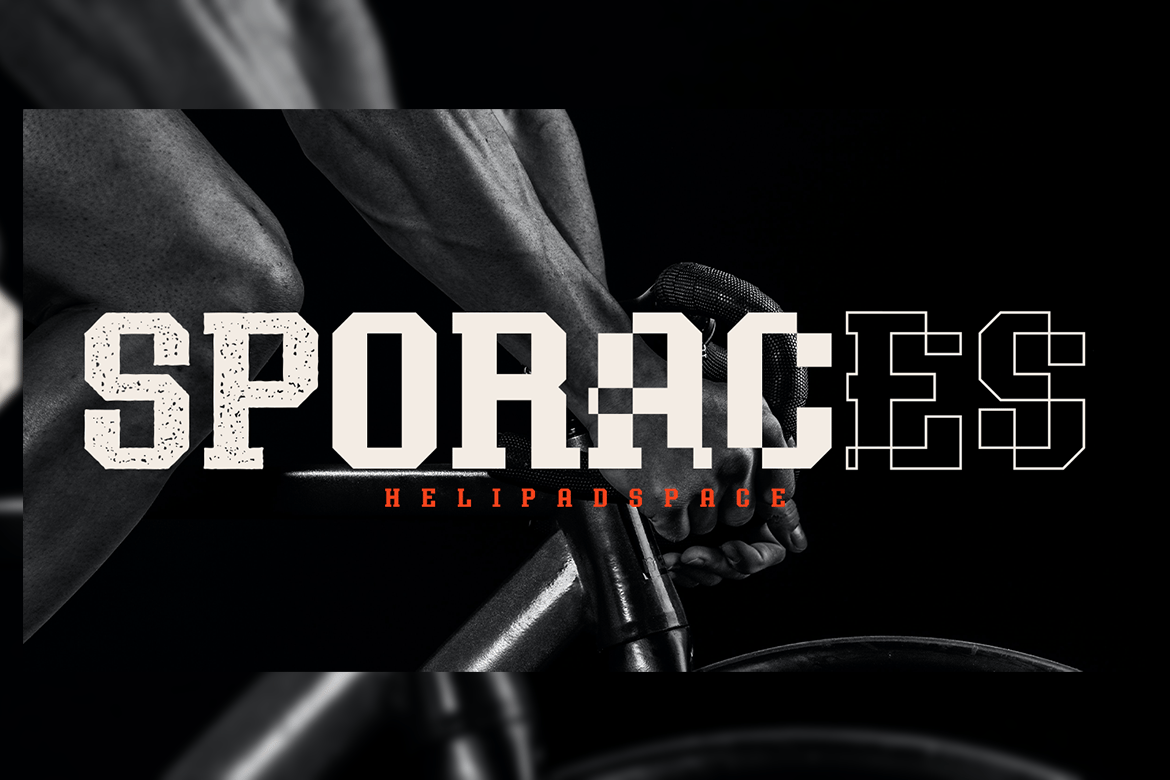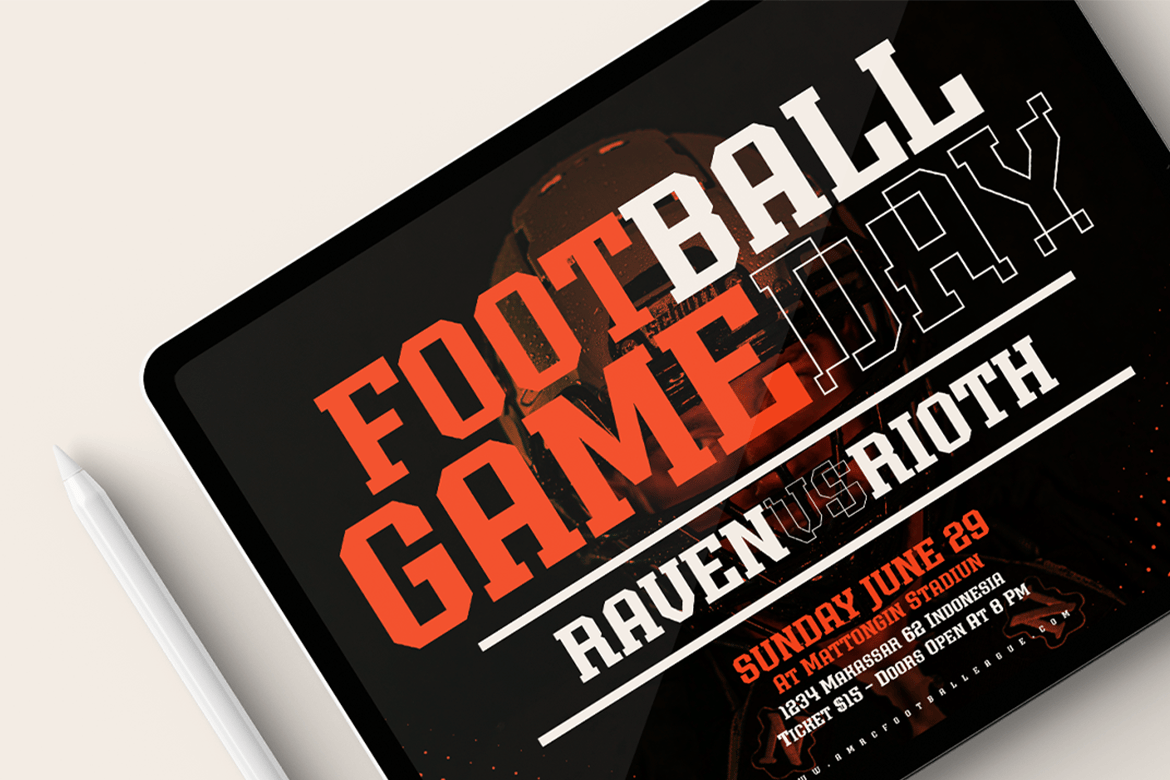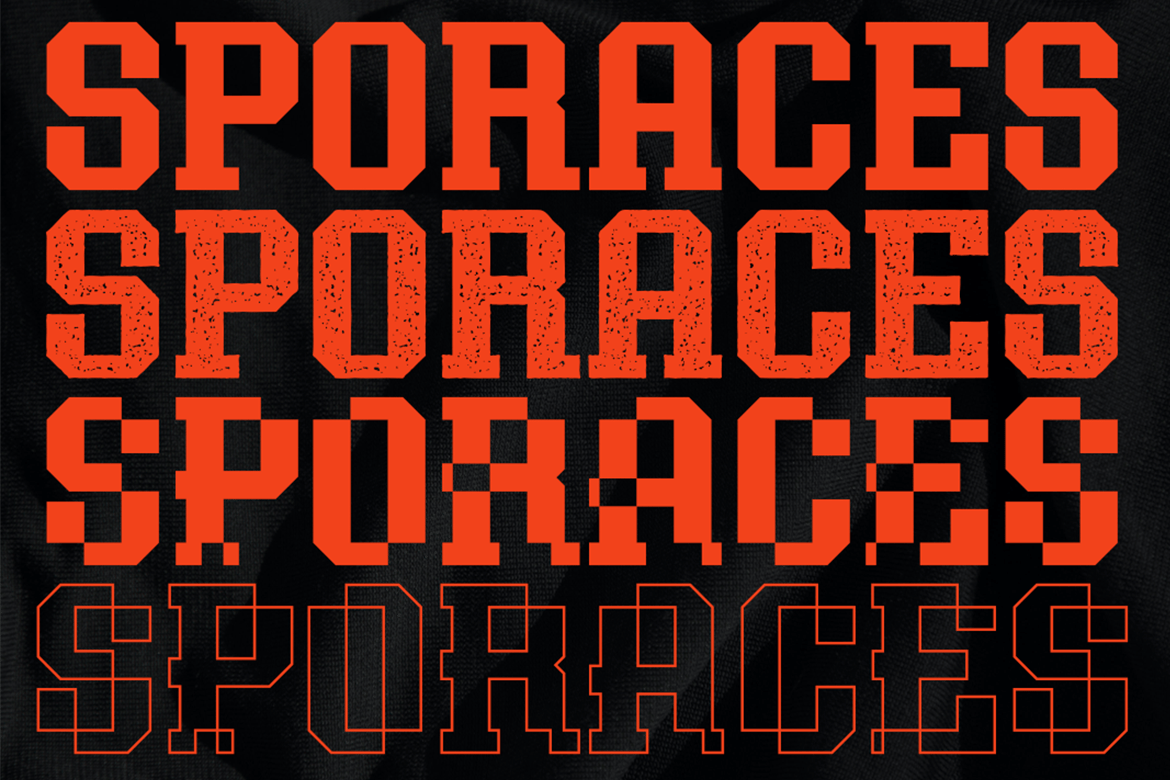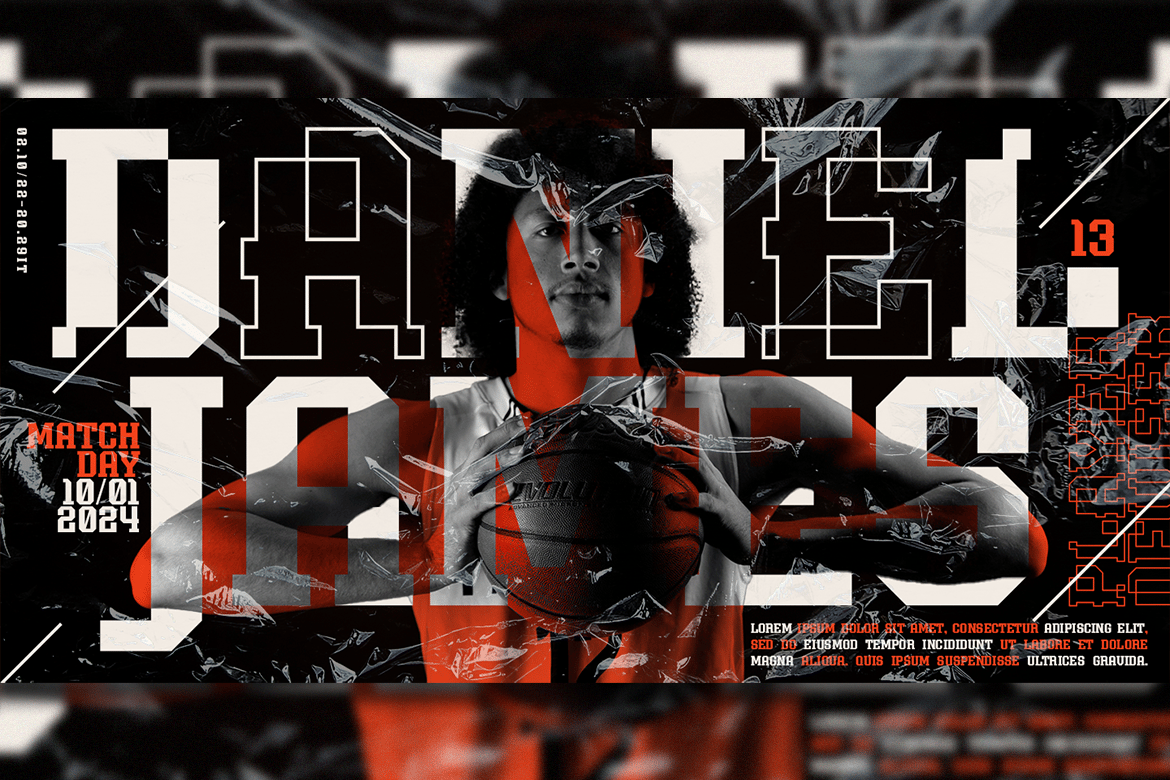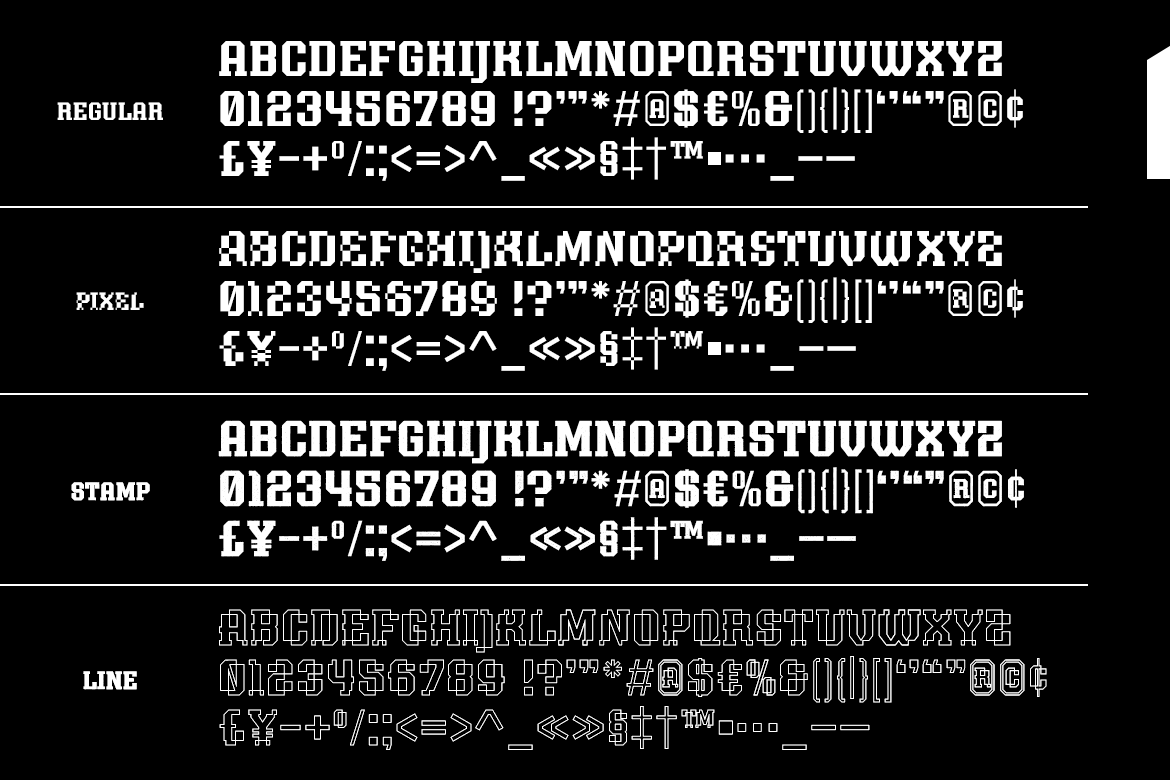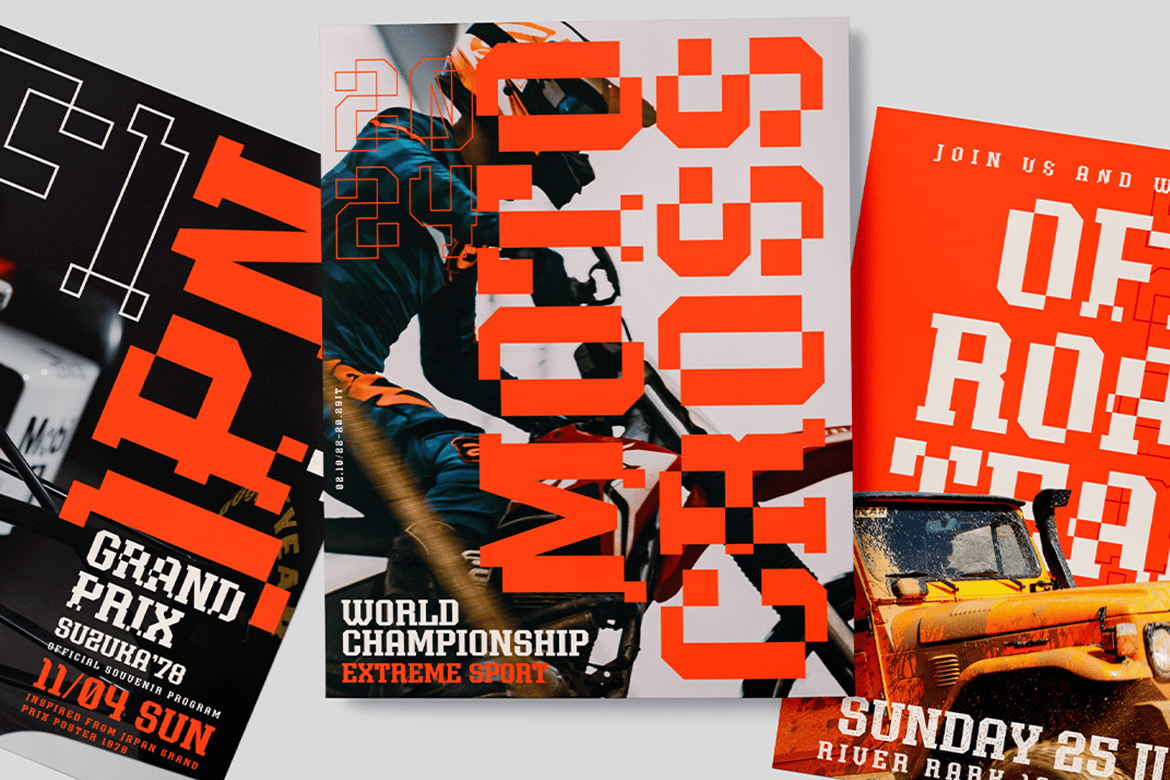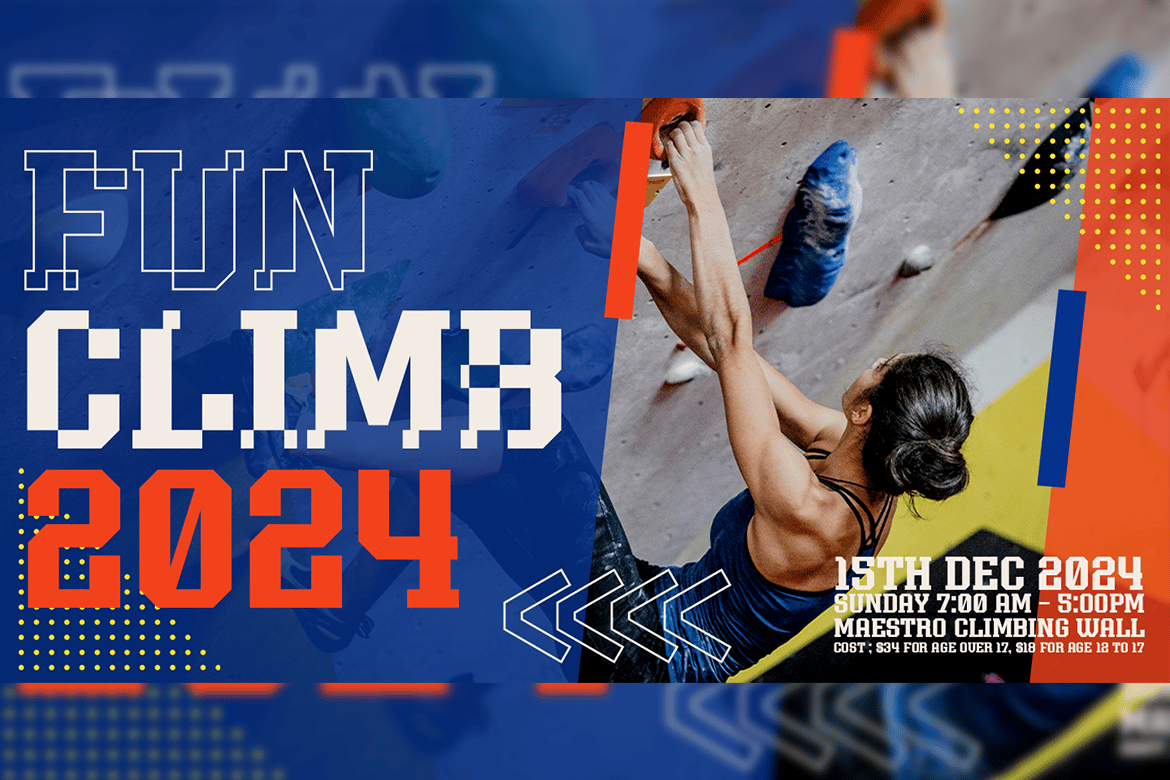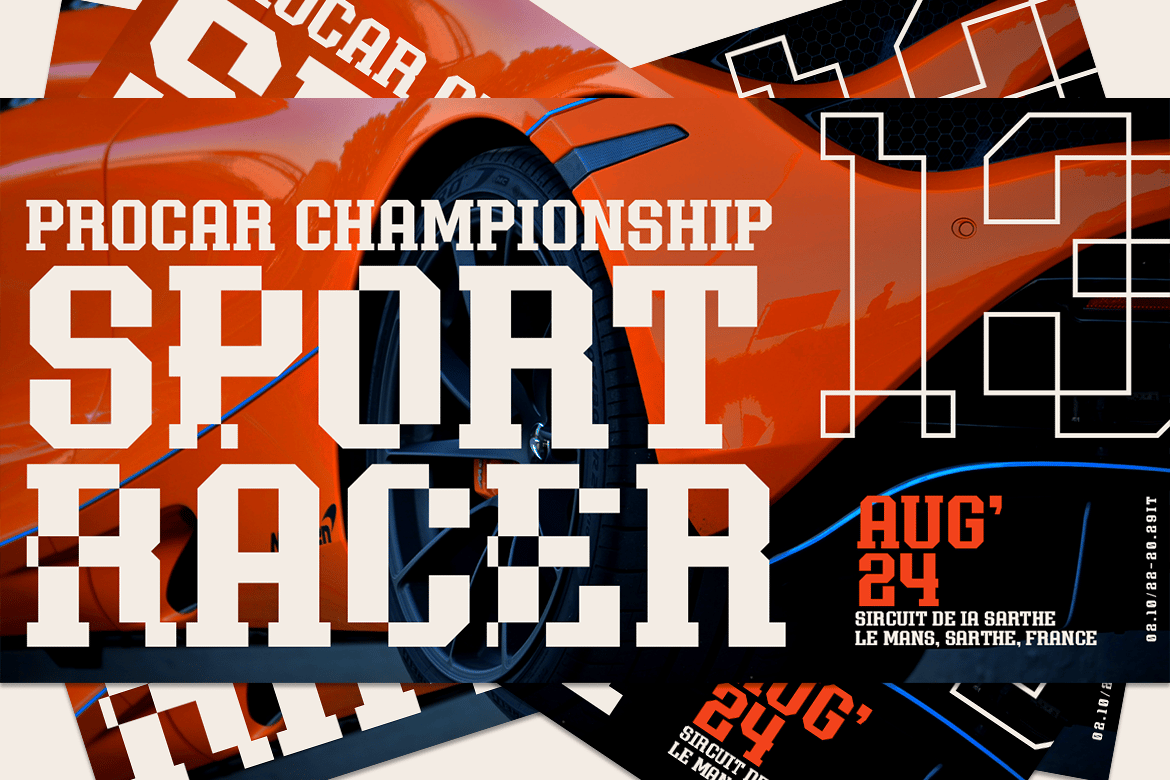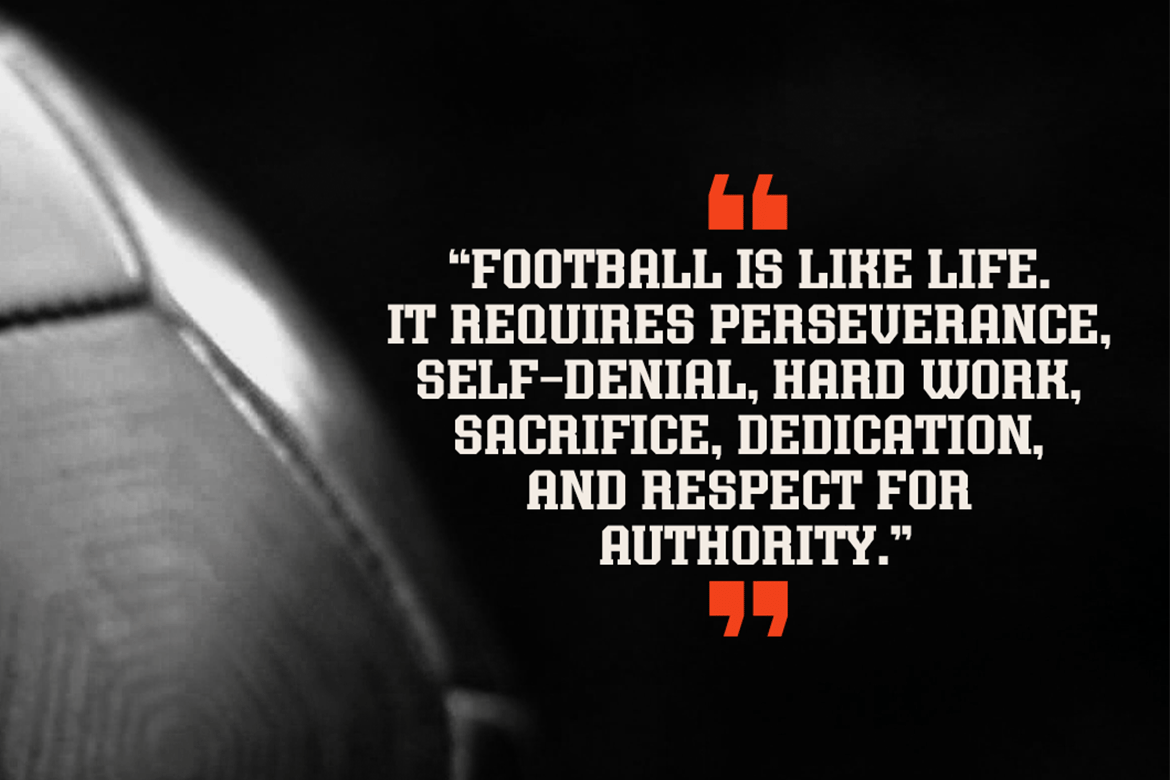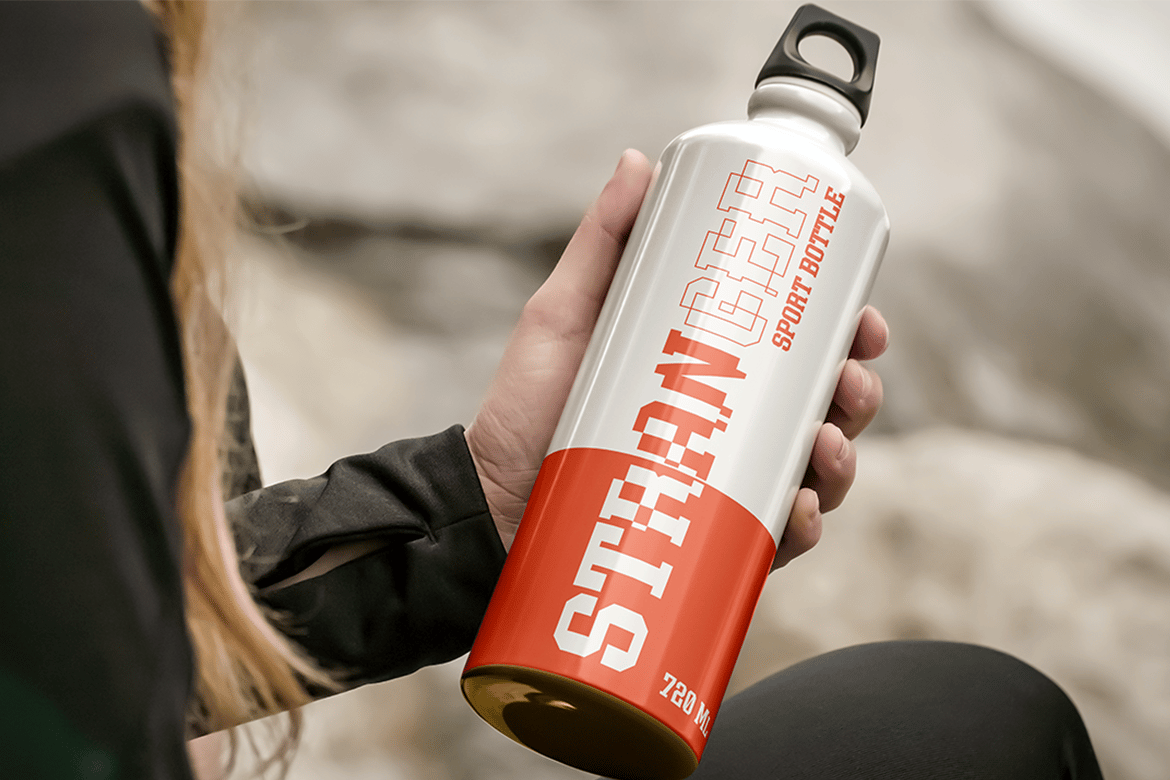
HS Sporaces – An Experimental Slab Serif Font
Introducing, HS Sporaces An Experimental Slab Serif Display Font with four styles. It looks strong and stylish that can be used for all your project needs. This font can be used at any time and on any project.
So, HS Sporaces font can’t wait to give its touch to all your design projects such as sport theme, magazine, movie, poster design, printing, personal branding, promotional materials, logotype, product packaging, etc. In use, it can be mixed and matched in every word in a design project.
Style : Regular, Pixel, Stamp, Line